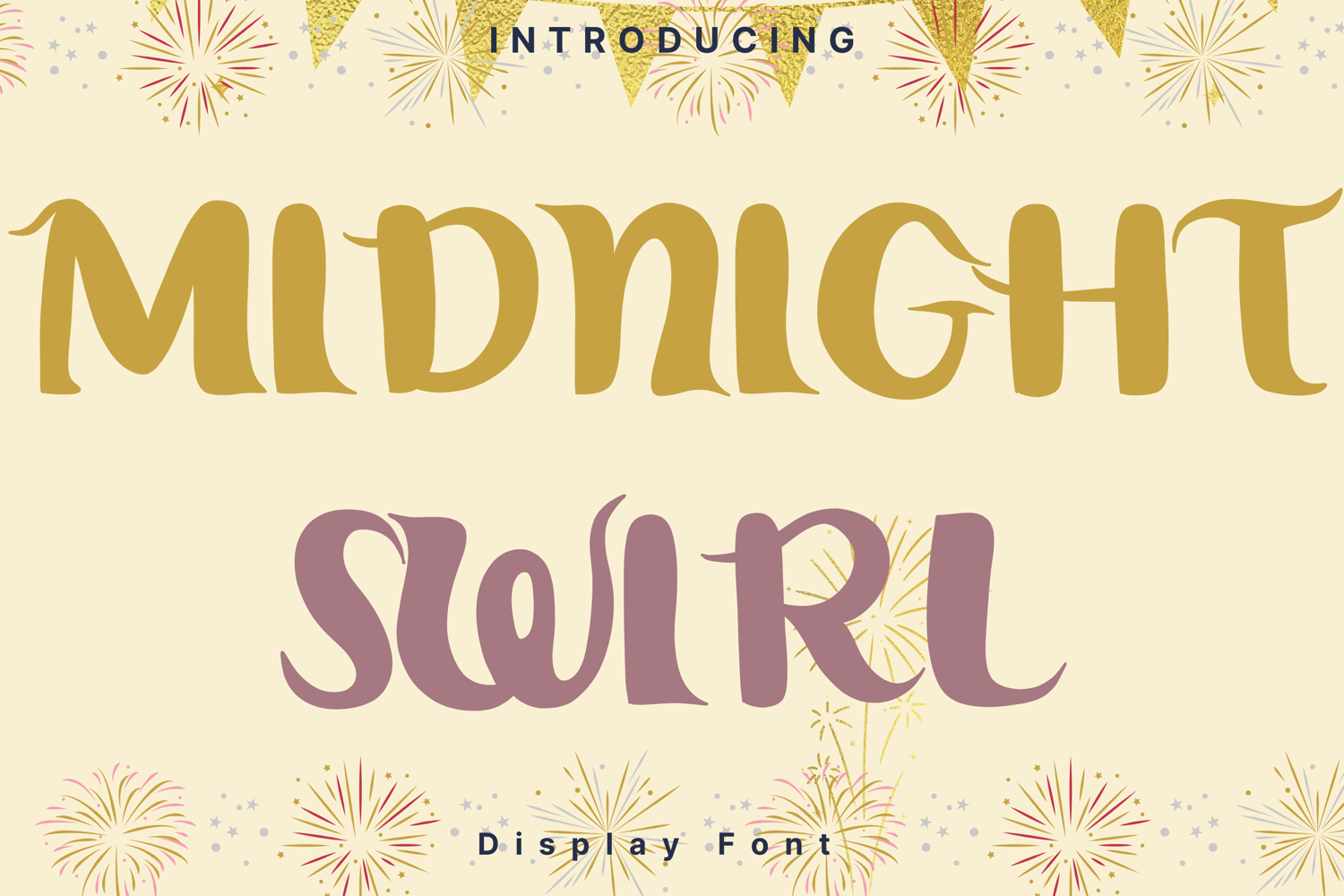
Midnight Swirl Style
Midnight Swirl
Midnight Swirl Script is an elegant, bold script font with playful curls and flowing strokes. Its balanced blend of vintage flair and modern charm makes it perfect for invitations, branding, headlines, posters, and social media graphics. The rounded edges and stylish curves add warmth and sophistication to any creative project.